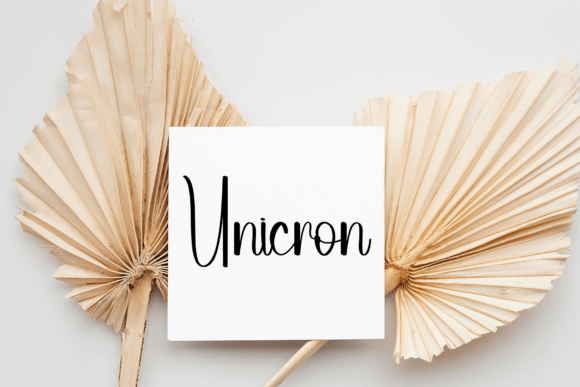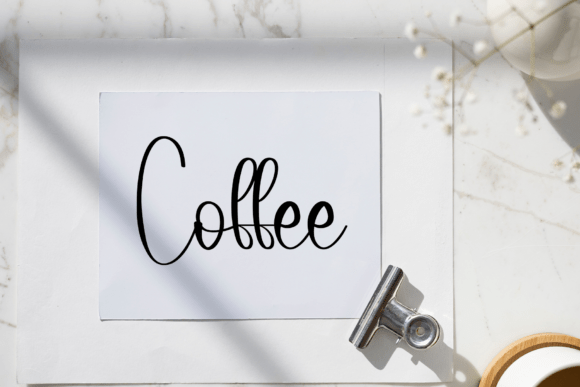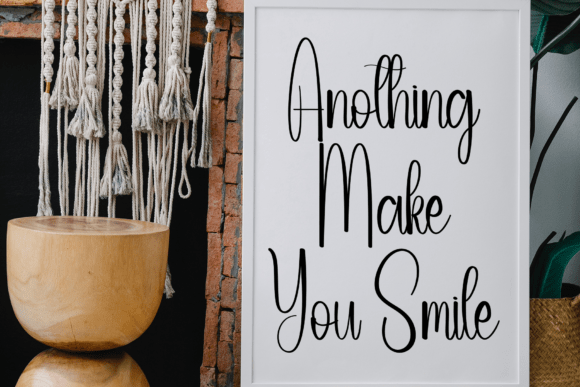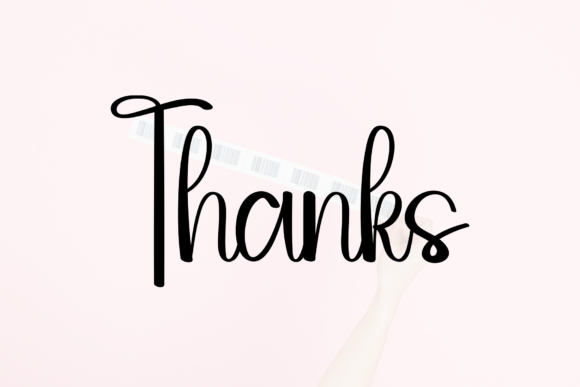
Bulky Valentine Font: The Perfect Choice for Your Design Projects
Are you looking for a font that exudes warmth, comfort, and a sense of imperfection? Look no further than Bulky Valentine, a charming handwritten font that is sure to capture the hearts of designers and crafters alike. With its smooth strokes and organic lines, this font is perfect for creating a relaxed atmosphere in a variety of design projects.
The Characteristics of Bulky Valentine Font
Bulky Valentine is a unique and captivating font that boasts a range of characteristics that make it stand out from the crowd. Some of its key features include:
- Smooth Strokes: The font features smooth, flowing strokes that give it a natural and effortless look.
- Organic Lines: The lines in Bulky Valentine are organic and imperfect, giving the font a charming and handmade feel.
- Heartfelt Perfection: The font is filled with a sense of heartfelt perfection, making it perfect for designs that require a personal touch.
Uses for Bulky Valentine Font
Bulky Valentine is a versatile font that can be used in a wide range of design projects, including:
- Branding: Use Bulky Valentine to create a unique and memorable brand identity that stands out from the competition.
- Invitations: The font is perfect for creating beautiful and eye-catching invitations for weddings, parties, and other special occasions.
- Social Media Graphics: Use Bulky Valentine to create engaging and shareable social media graphics that capture the hearts of your followers.
- Stationery: The font is great for creating custom stationery, including notecards, greeting cards, and letterheads.
Why Choose Bulky Valentine Font?
So why choose Bulky Valentine over other fonts? Here are just a few reasons why this font stands out:
- Unique and Memorable: Bulky Valentine is a one-of-a-kind font that is sure to make your designs stand out.
- Easy to Read: Despite its imperfect lines, Bulky Valentine is surprisingly easy to read, making it perfect for body text and headlines.
- Versatile: The font can be used in a wide range of design projects, from branding to social media graphics.
Tips for Using Bulky Valentine Font
Here are a few tips for getting the most out of Bulky Valentine:
- Pair with Other Fonts: Experiment with pairing Bulky Valentine with other fonts to create a unique and eye-catching design.
- Use in Combination with Images: The font looks great when used in combination with images, particularly those with a natural or vintage feel.
Bulky Valentine is a charming and versatile font that is perfect for designers and crafters looking to add a personal touch to their designs. With its smooth strokes, organic lines, and heartfelt perfection, this font is sure to capture the hearts of audiences everywhere. Whether used for branding, invitations, or social media graphics, Bulky Valentine is a great choice for any design project.